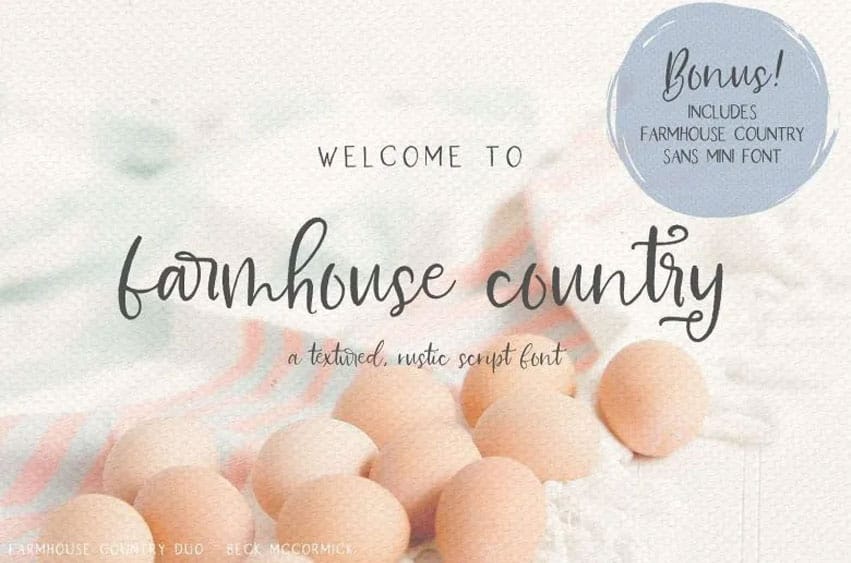
Farmhouse Country Font is a commercial product but users have access to a free version of this design originated from Beck McCormick. Your shabby chic needs will find the perfect solution in Farmhouse Country which presents itself as an elegant text font.
This font suits wedding invitation needs and also works great for female-oriented T-Shirts and printed products.